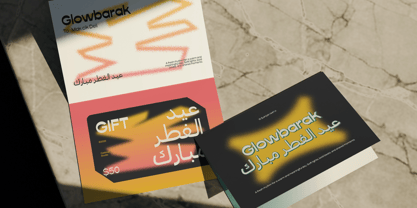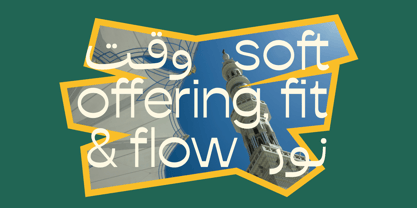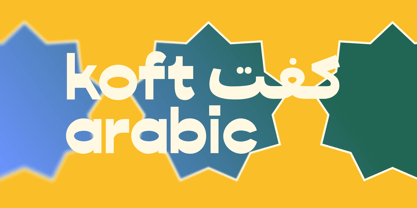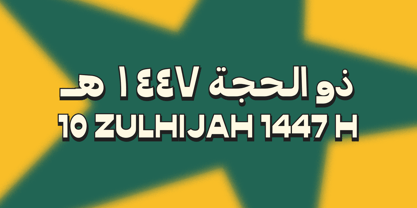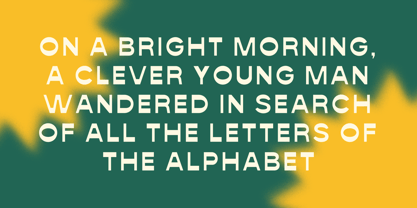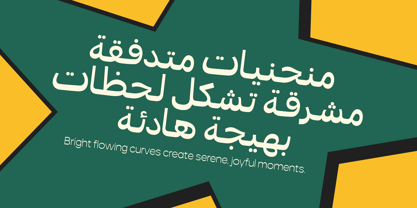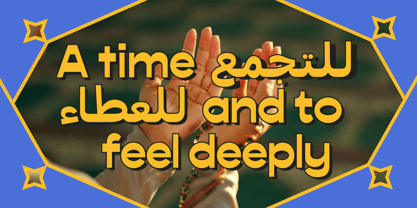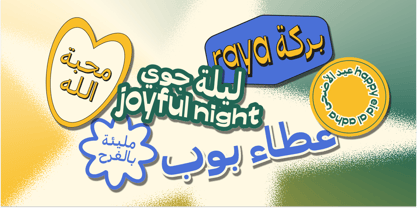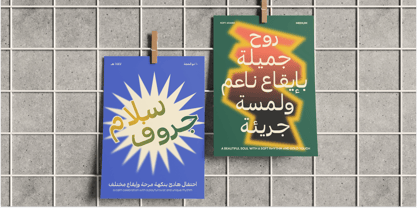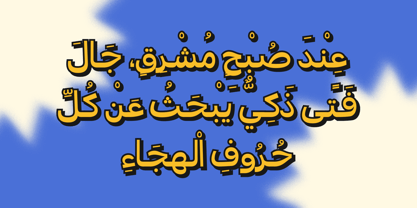
Koft Arabic
The Koft Arabic Font Family was designed by Wantara Putra and published by Casloop Studio. Koft Arabic contains 9 styles and family package options. More about this family
Koft Arabic is a modern funky typeface that reinterprets Arabic character forms with a clean, contemporary approach and a playful visual tone. Key letters such as ا، ل، م، ن، و، ق are designed with rounded, streamlined structures, enhanced by a distinctive thin-to-black contrast that creates a bold yet lightweight impression. Complementing this, the Latin R and K introduce subtle dynamism through clean diagonal legs that feel lively without becoming aggressive. The overall stroke rhythm remains consistent and controlled, resulting in a typeface that feels modern, expressive, and approachable. With its versatile 9-weight system, Koft Arabic is ideal for Eid campaigns, Islamic branding, packaging, and creative projects that seek a fresh, stylish, and culturally resonant identity. Recommended pairing with Cairo, Tajawal, Noto Sans Arabic, Helvetica Neue, Futura, Avenir